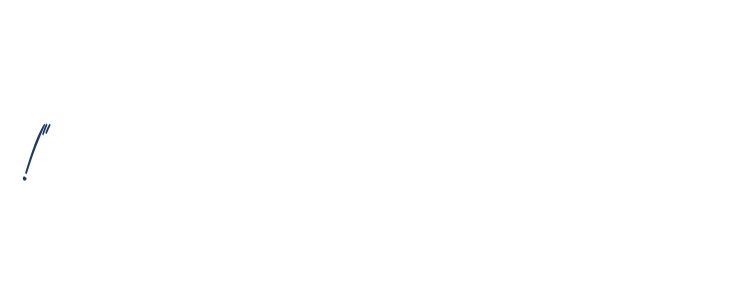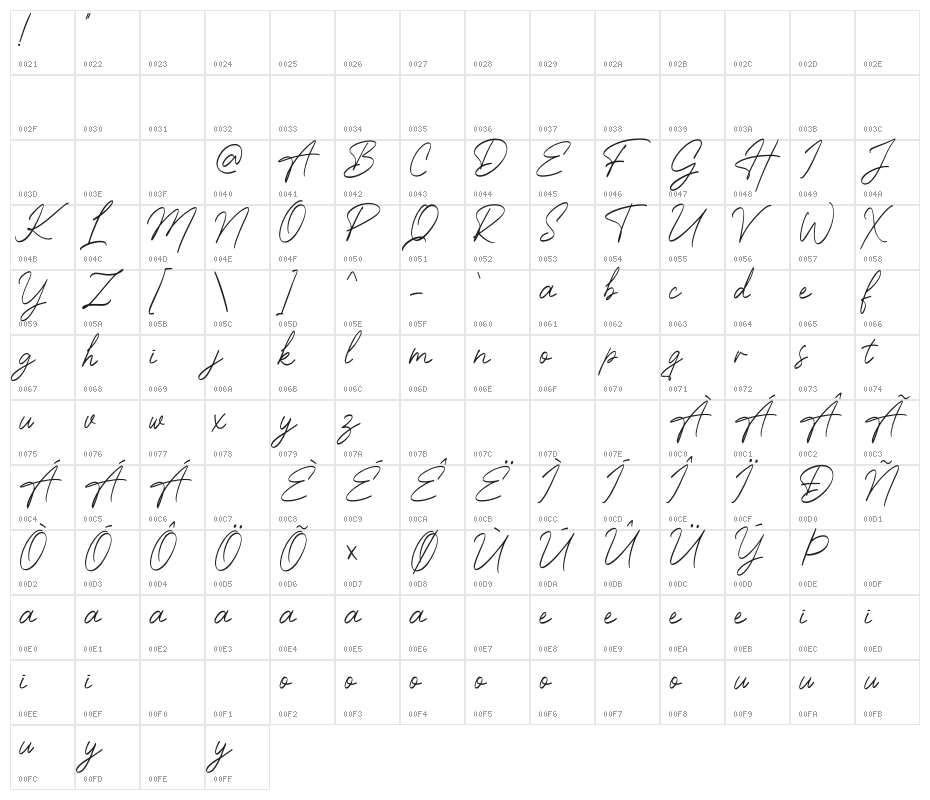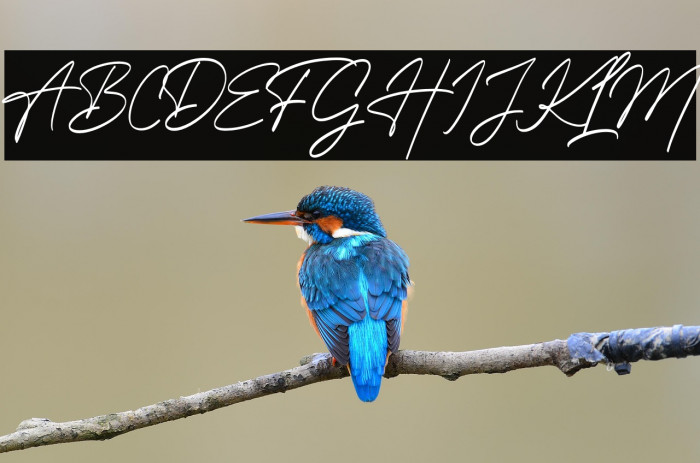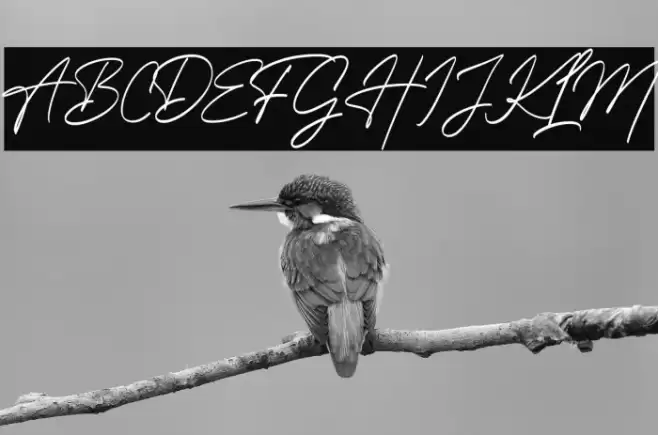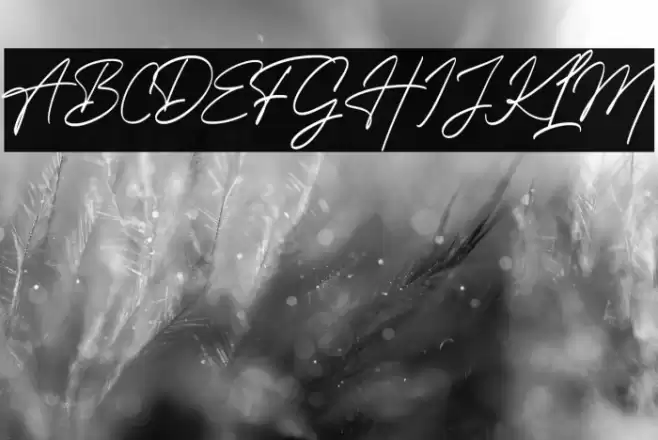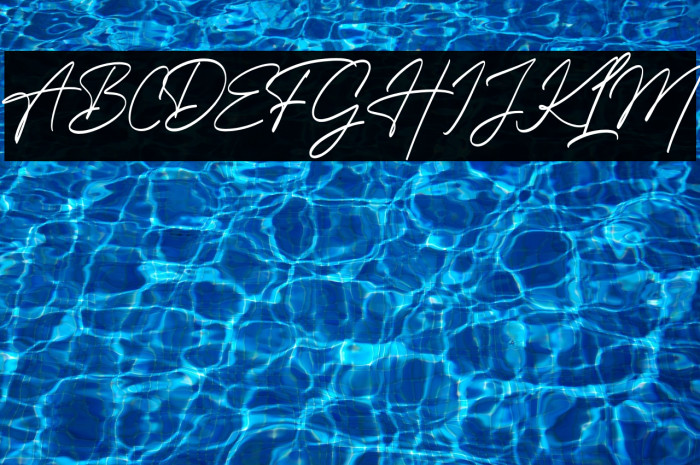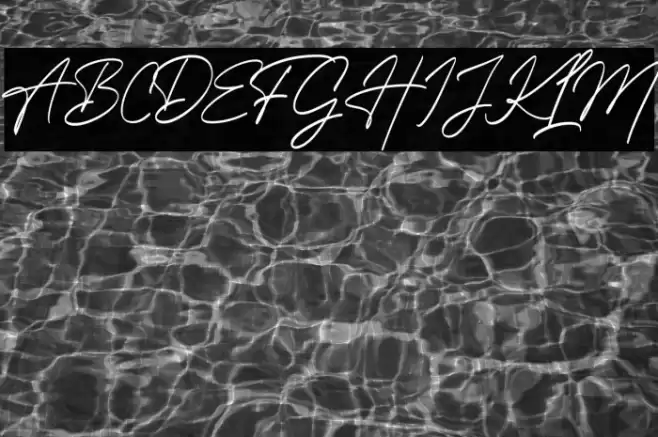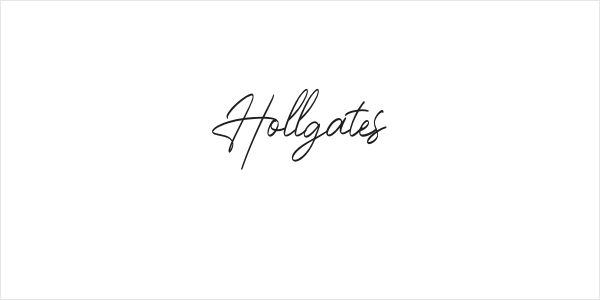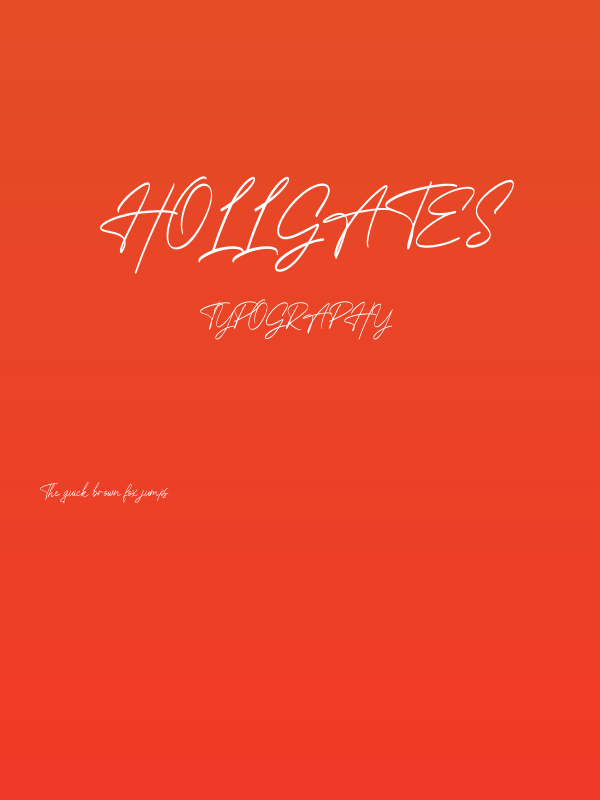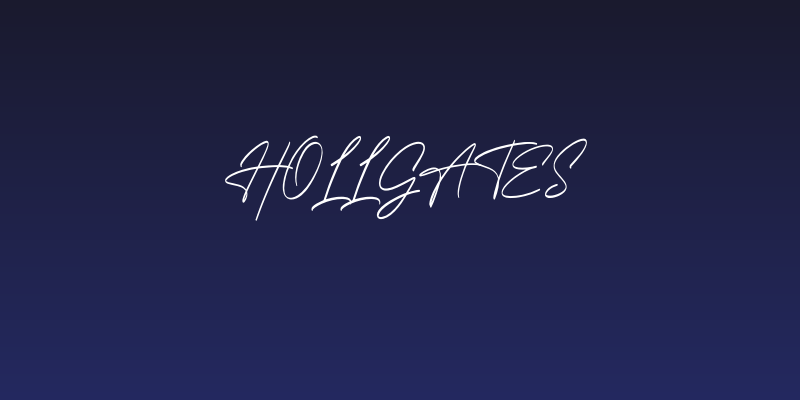
Hollgates Font
Hollgates Description
This font features a flowing, cursive style that mimics elegant handwriting. The letters are connected, creating a seamless and fluid appearance. The strokes are smooth and slightly varied in thickness, adding a touch of sophistication and grace. The uppercase letters are bold and prominent, while the lowercase letters maintain a consistent and harmonious flow. This script font exudes a sense of elegance and is perfect for projects that require a personal and refined touch.
| Use Case | Logos, Invitations, Personal branding |
| Proposed Projects | Ideal for wedding invitations, greeting cards, personal branding, and elegant logo designs. |